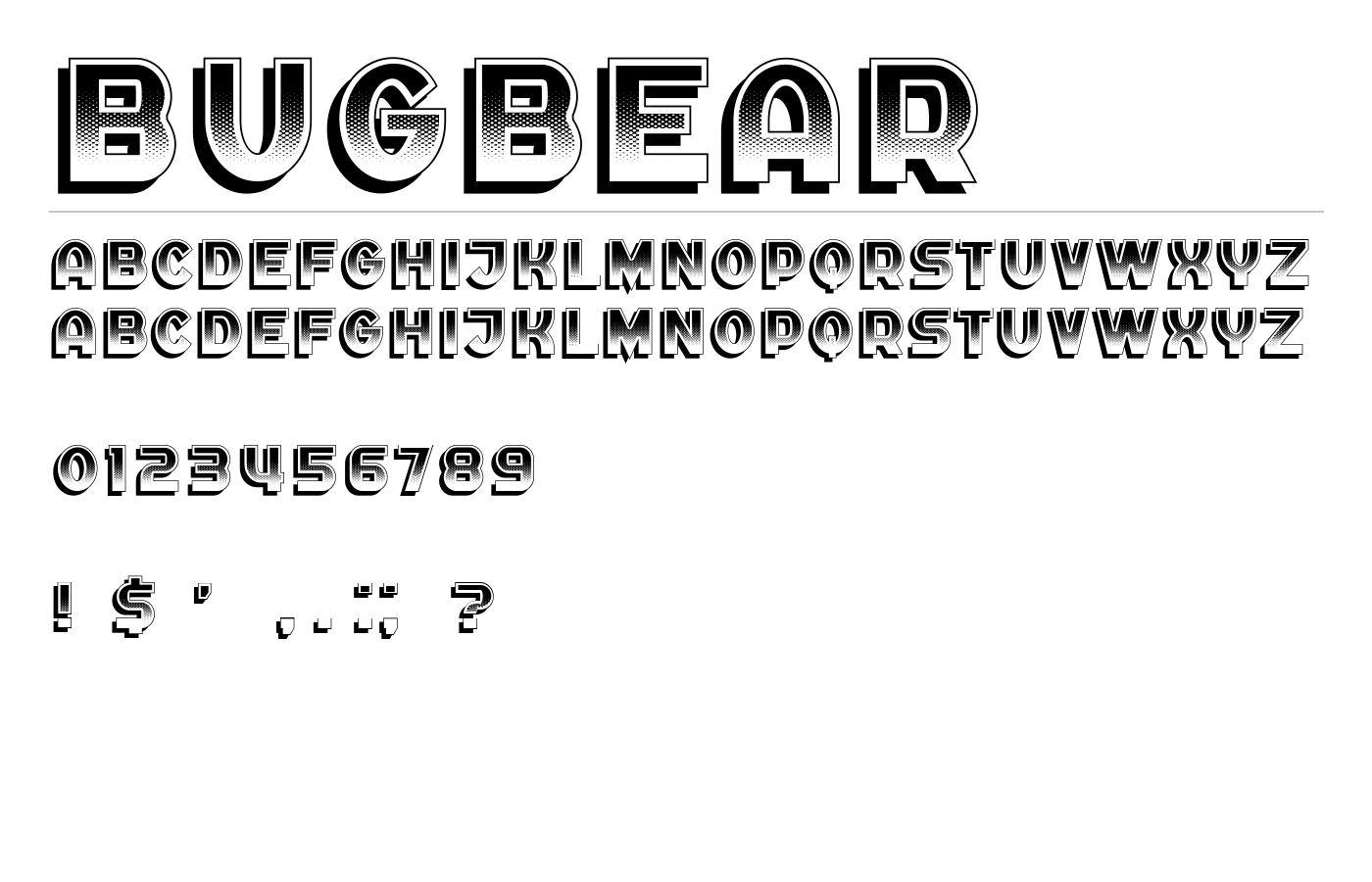
Bugbear is a bold and playful display sans serif font with strong geometric shapes and a unique halftone shading effect that adds depth and vintage flair. Its uppercase-only design features thick lines with sharp edges and distinctive details like cut-out shapes and angled strokes, making it perfect for eye-catching headlines, logos, and posters that need a quirky yet confident personality. This font shines in creative branding and retro-inspired design projects where a fun and energetic style is desired.
Bugbear Font
About Bugbear Font
| Font family | Bugbear Font |